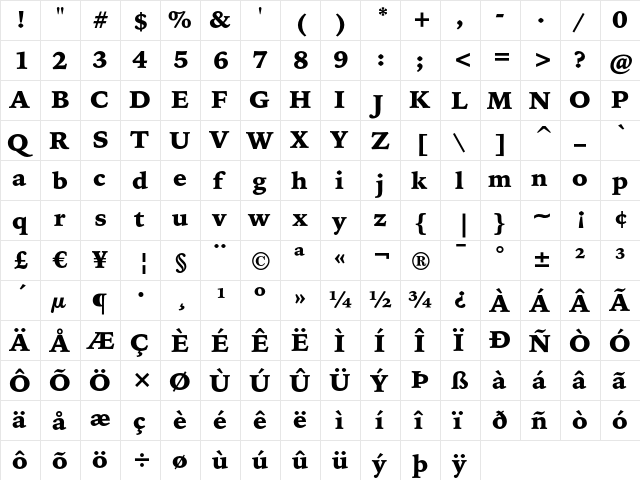
Bitstream Iowan Old Style Black
Design Context for Bitstream Iowan Old Style Typeface
Bitstream Iowan Old Style is a composed and adaptable typeface that performs quietly and consistently across a wide range of design contexts.